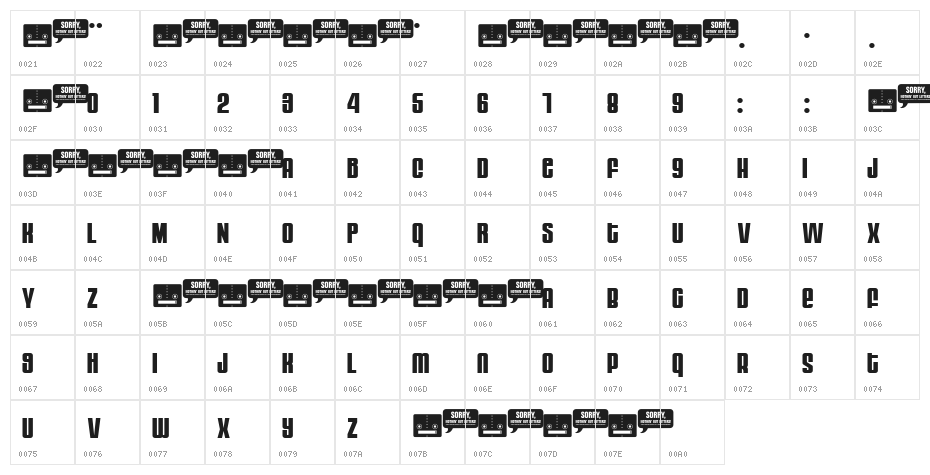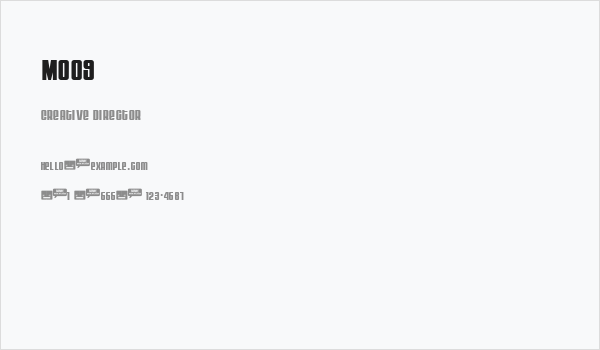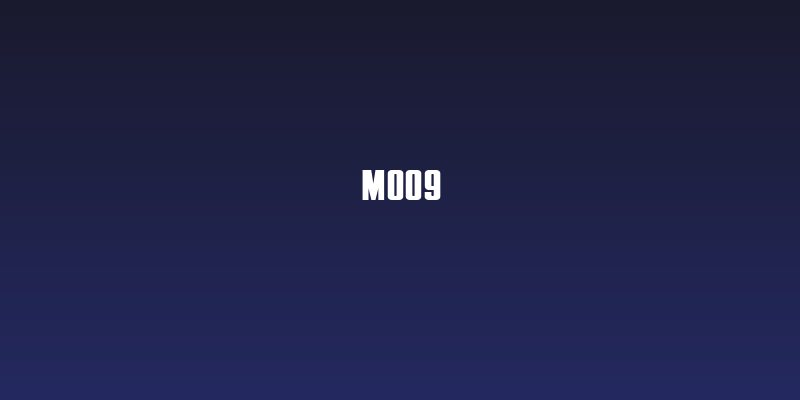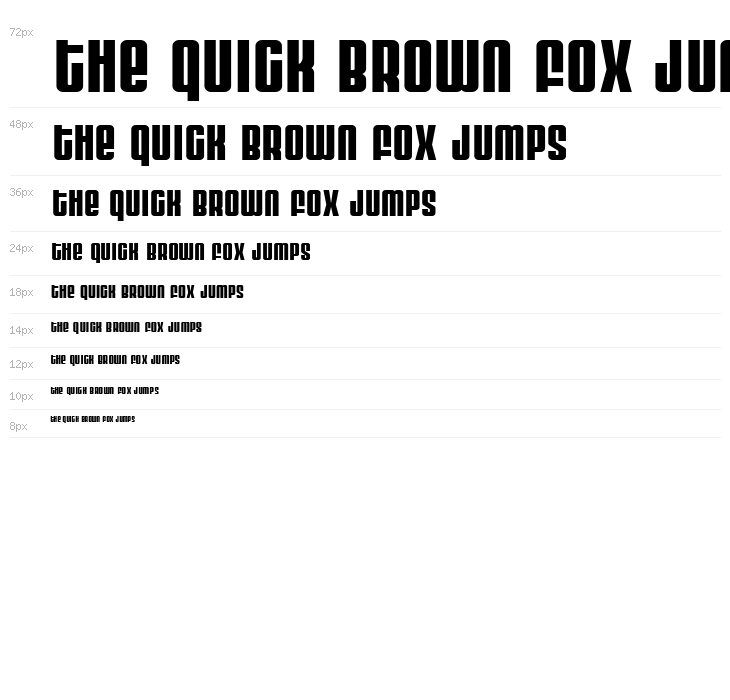
Moog Font
Moog Description
This font features a bold and striking design with thick, block-like characters that convey a sense of strength and modernity. The uppercase letters are uniform in height, with a slightly condensed width that enhances their impact. The numbers are equally bold, maintaining the same visual weight as the letters. The overall style is geometric, with clean lines and sharp angles, giving it a contemporary feel. The font's design is consistent throughout, making it suitable for creating attention-grabbing headlines or logos. Its robust appearance ensures readability while adding a touch of modern flair.
| Proposed Projects | This font is perfect for branding projects, poster designs, and any application requiring a strong visual impact. |